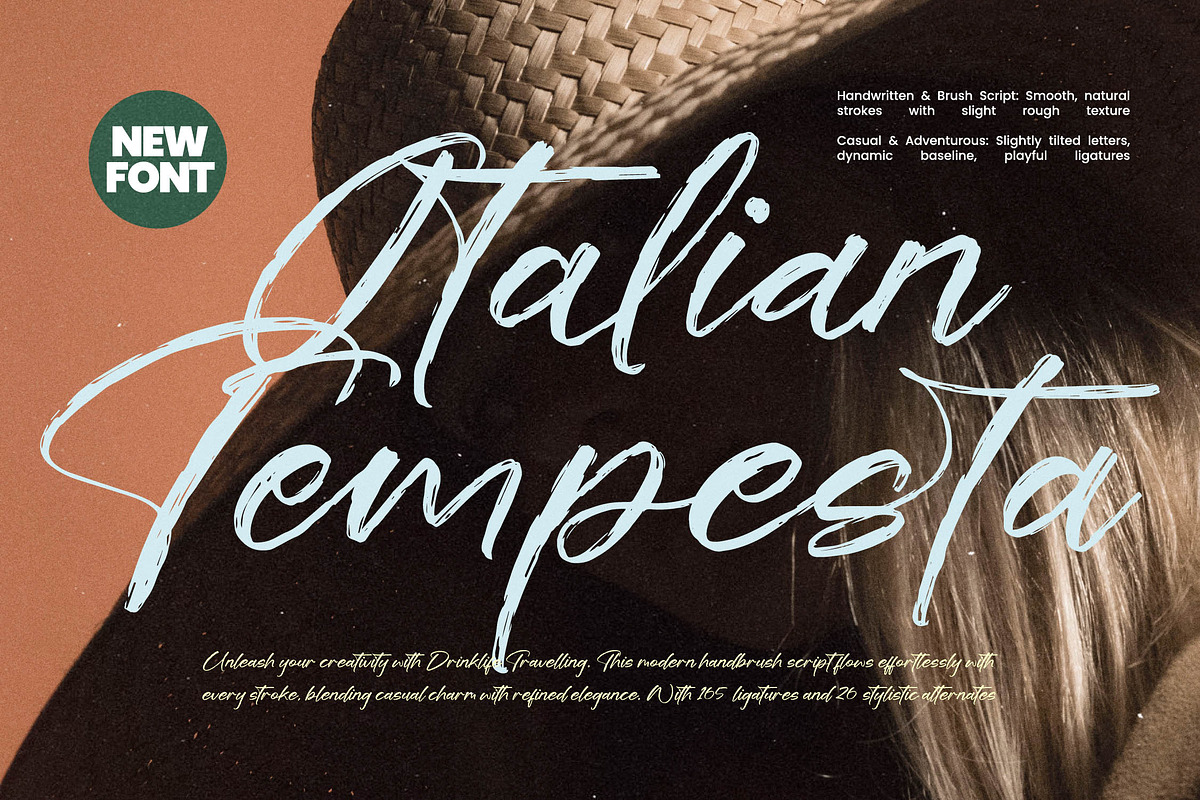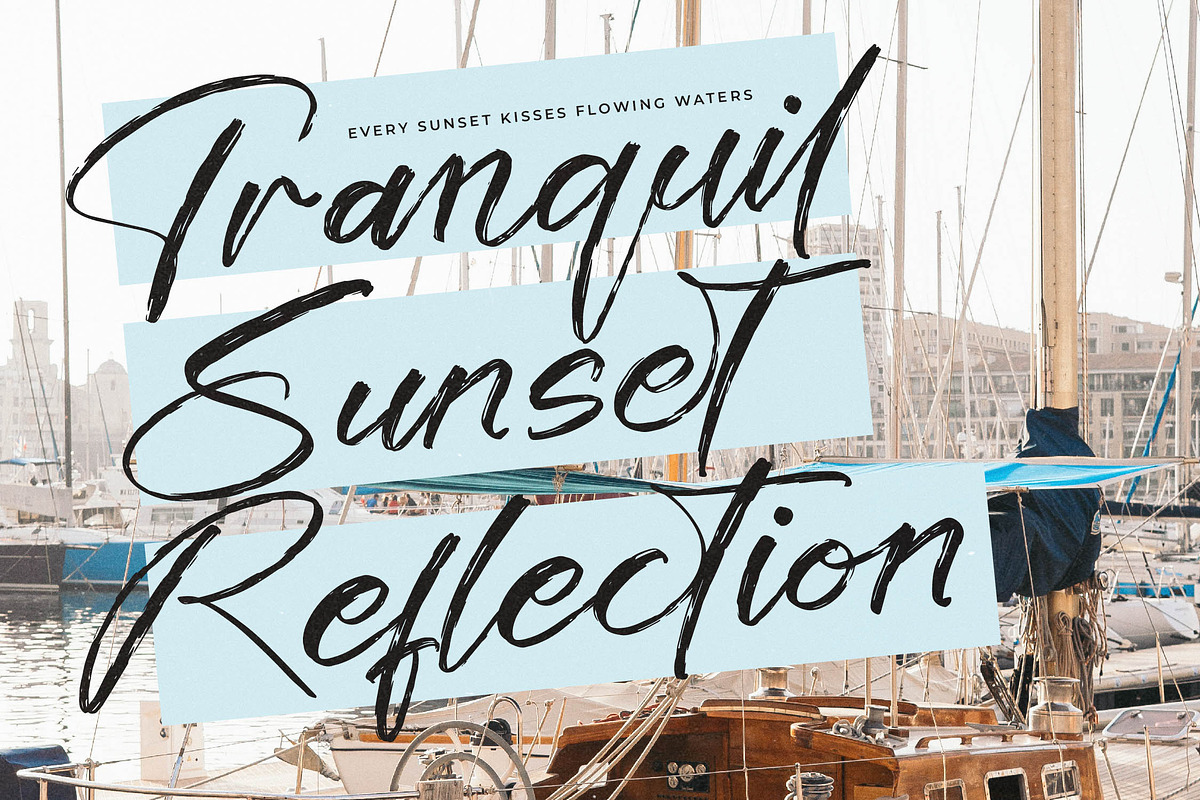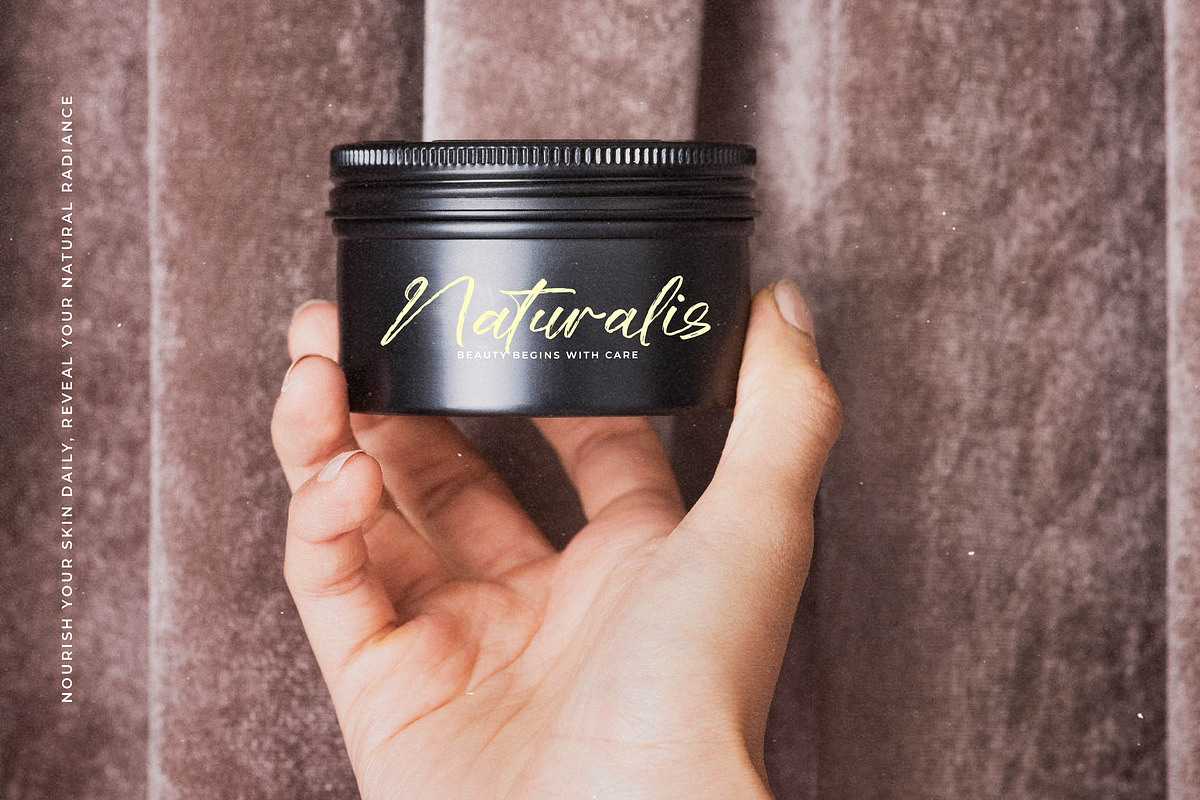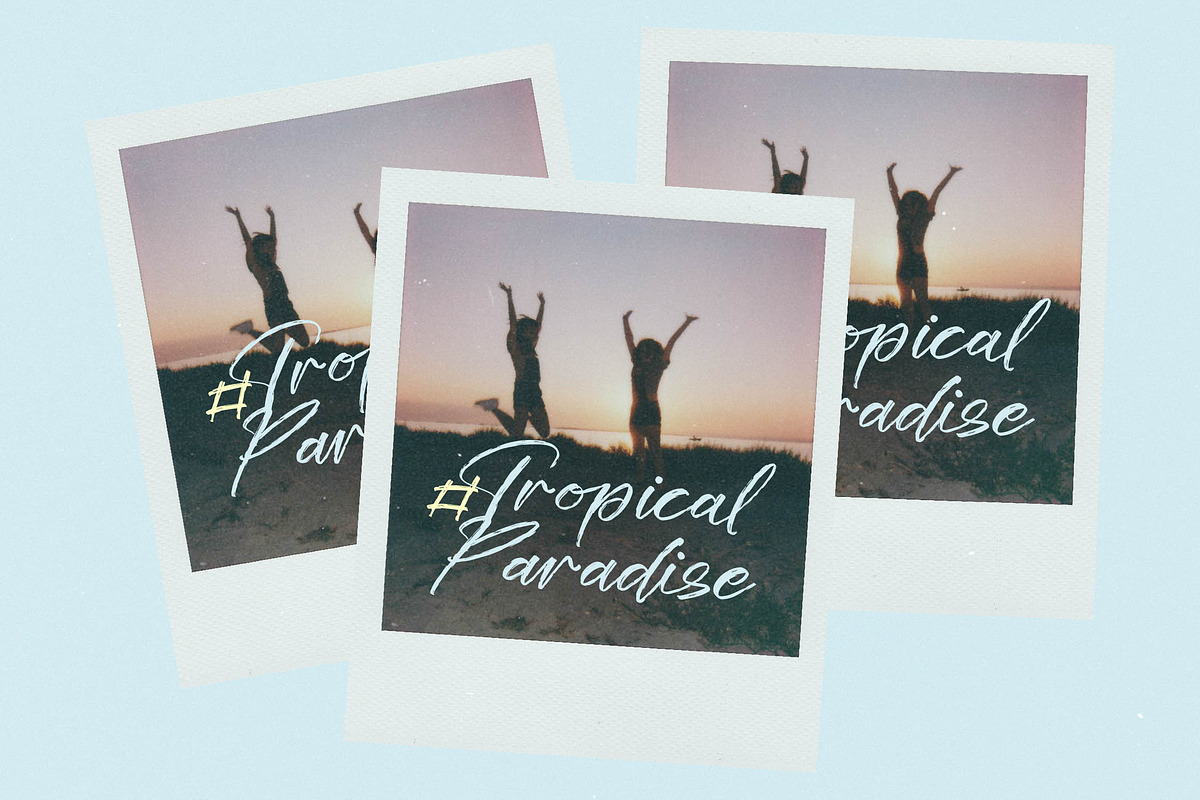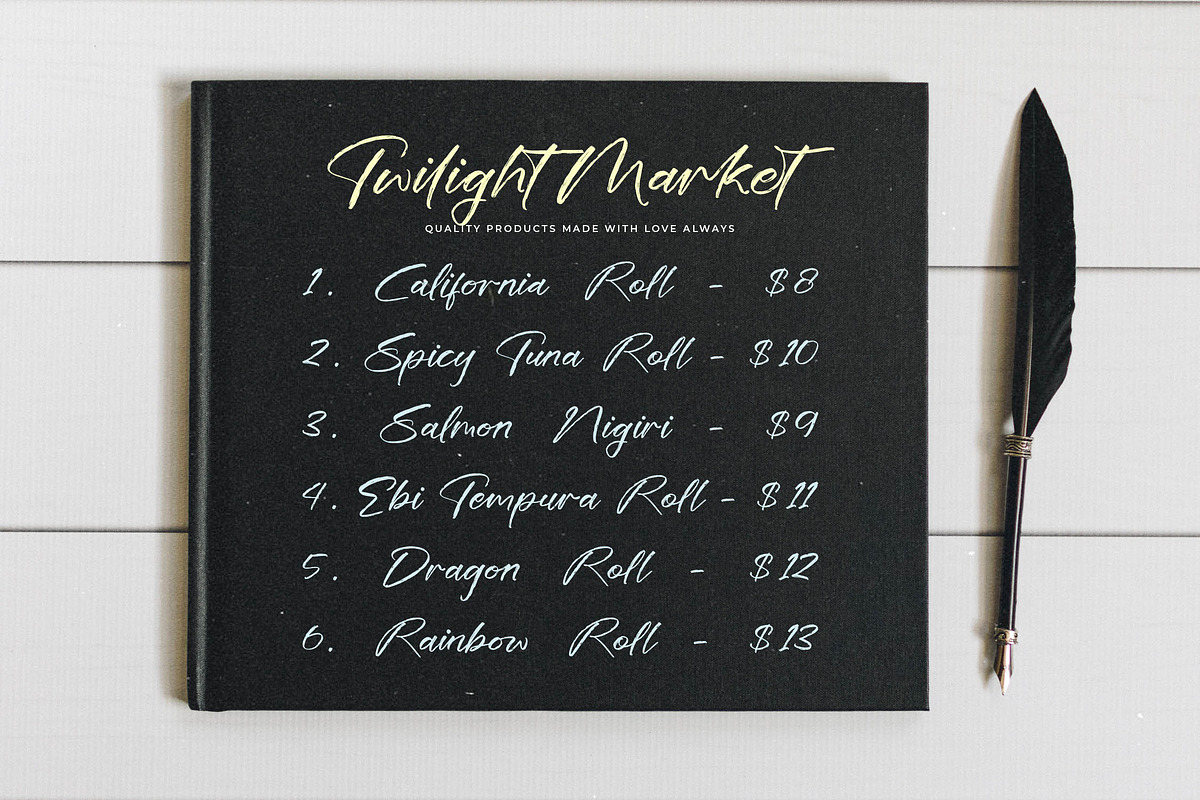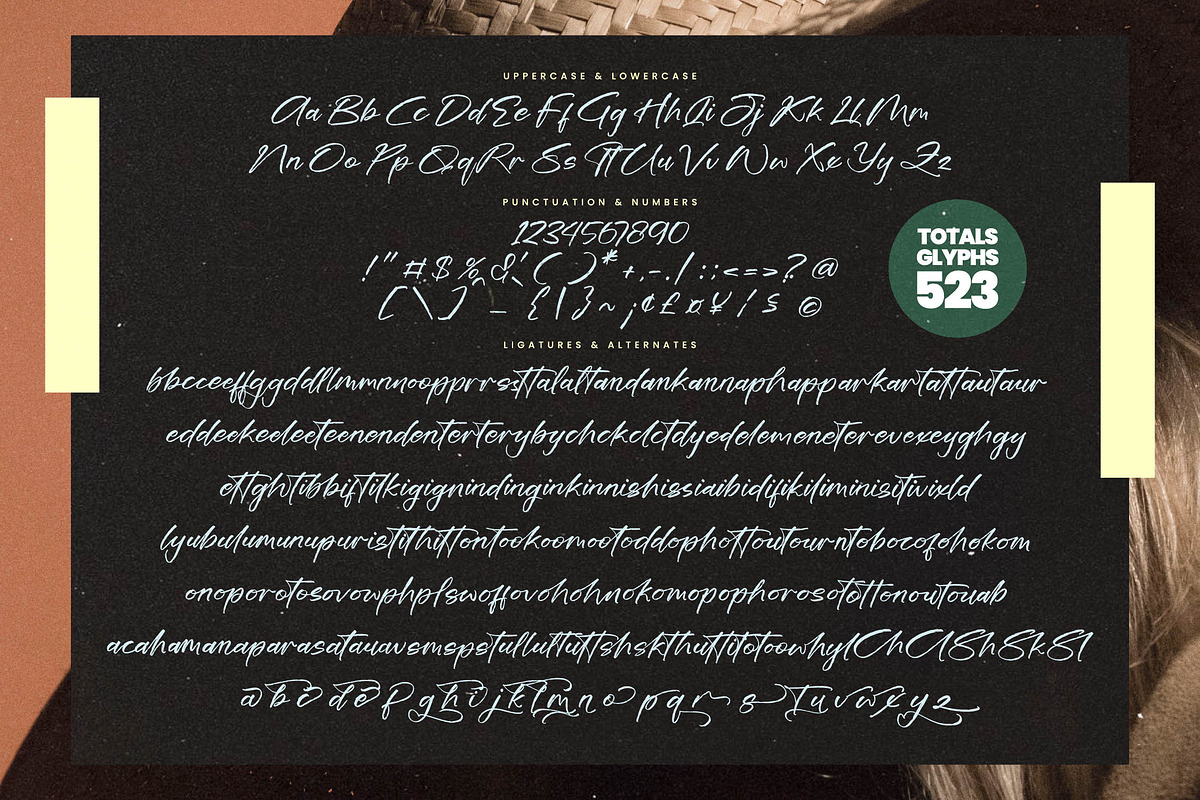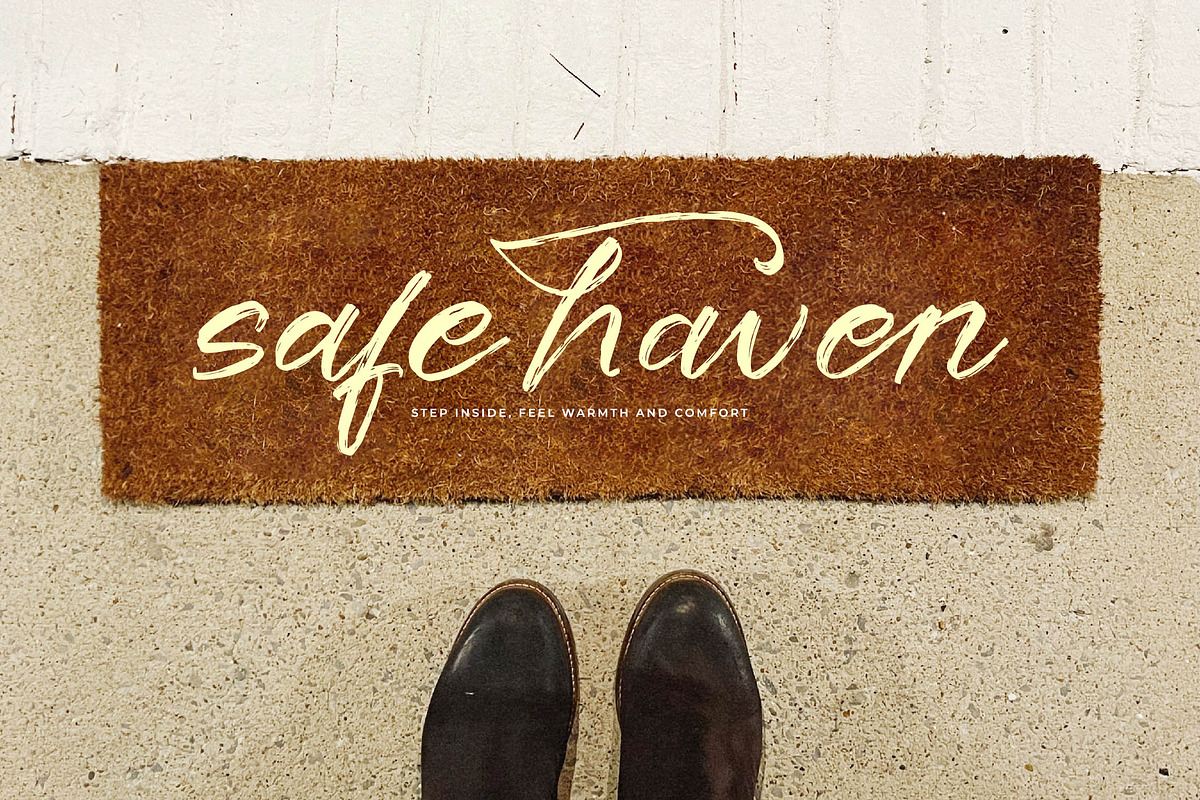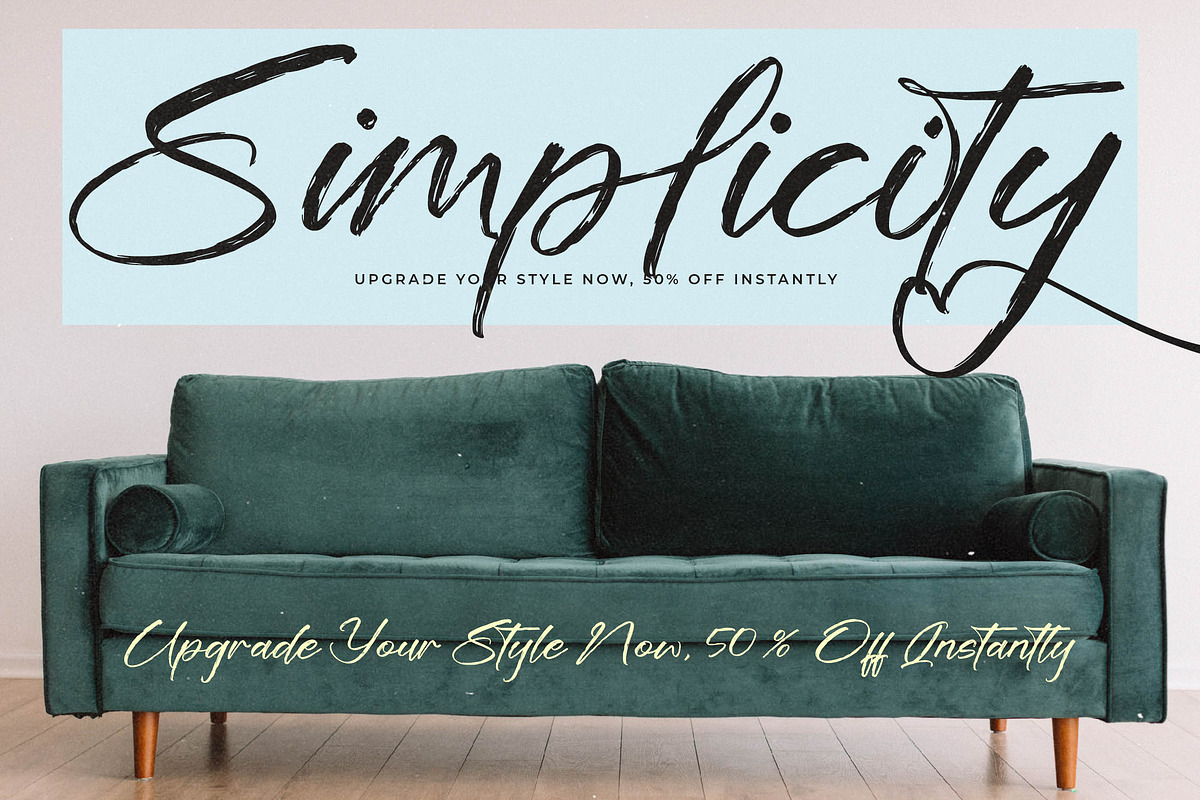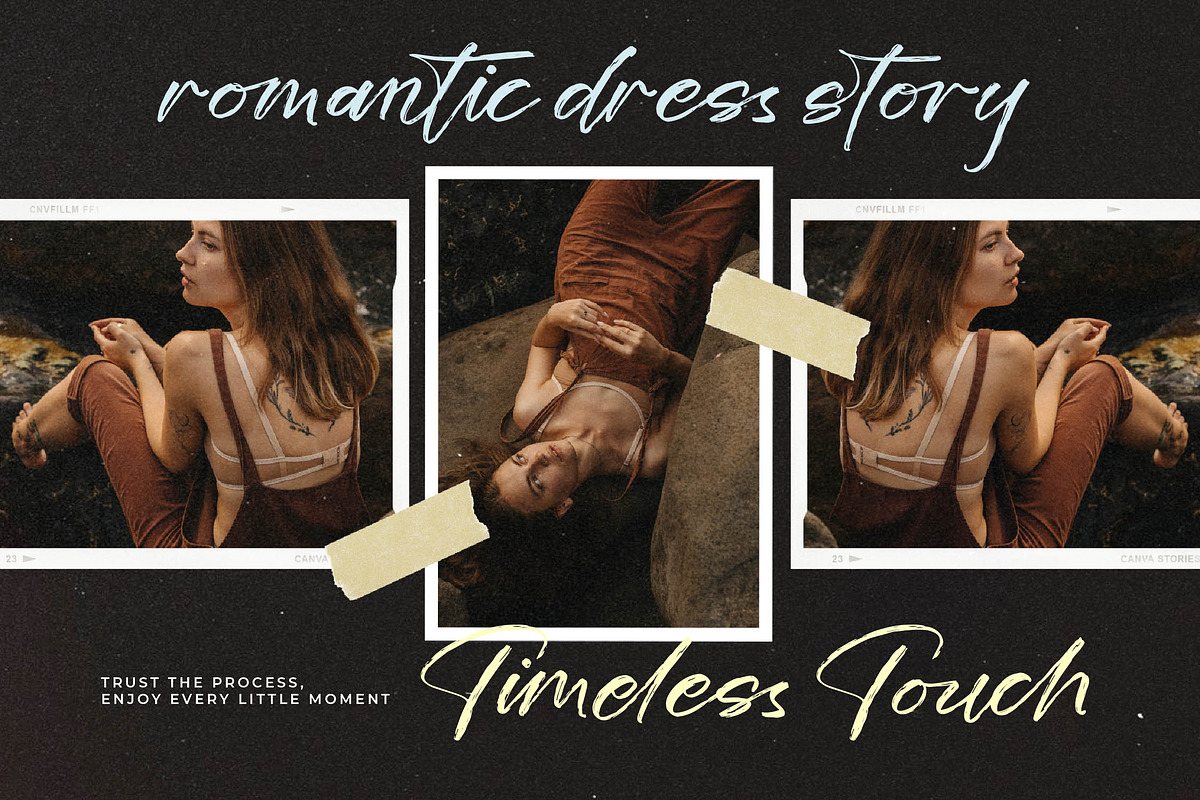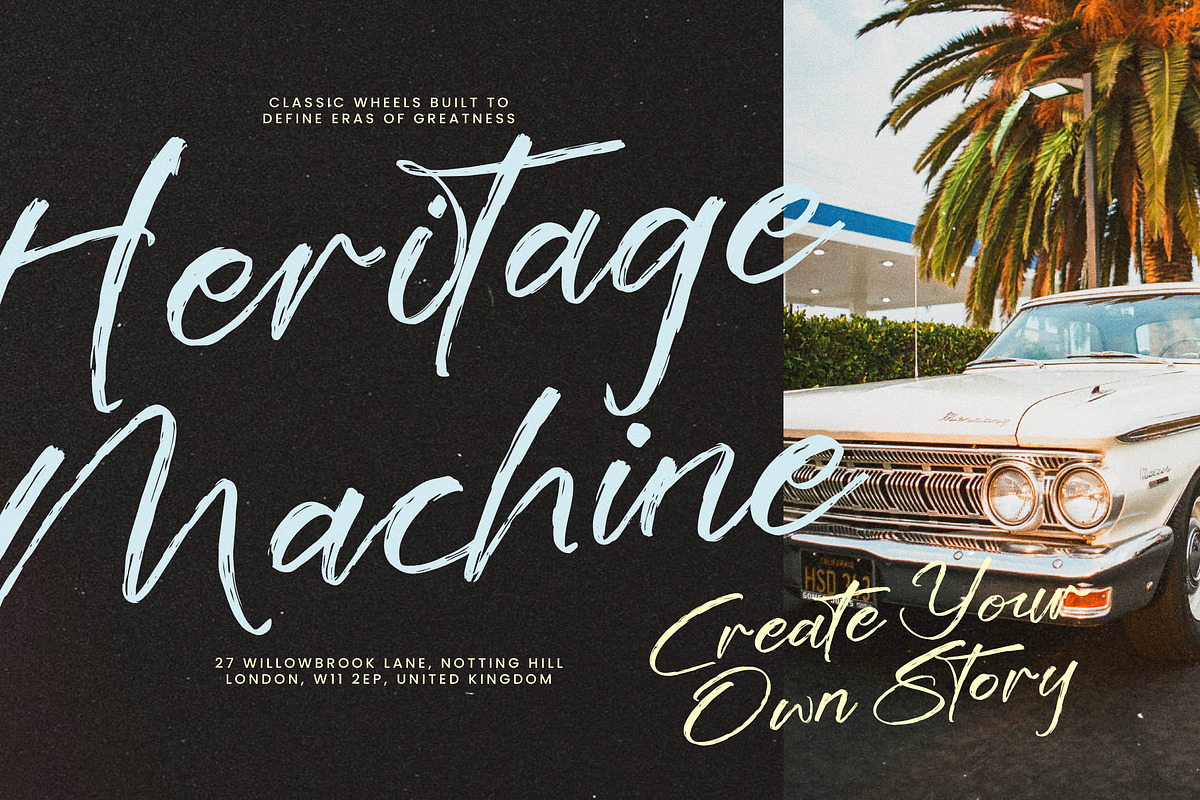
Italian Tempesta Handbrush Script
Italian Tempesta - Handbrush Script Font , Italian Tempesta is a modern handwritten & brush script font that captures the essence of casual sophistication and natural movement. With 165 ligatures and 26 stylistic alternates, this typeface offers smooth brush textures, slightly rough strokes, and dynamic baseline — ideal for branding, packaging, posters, and creative lifestyle projects.
Inspired by adventure and elegance, Italian Tempesta blends authenticity with artistry, giving every letter a hand-crafted charm. Perfect for designers seeking a balance of expressive energy and refined style, it’s a font that flows effortlessly across both print and digital designs.